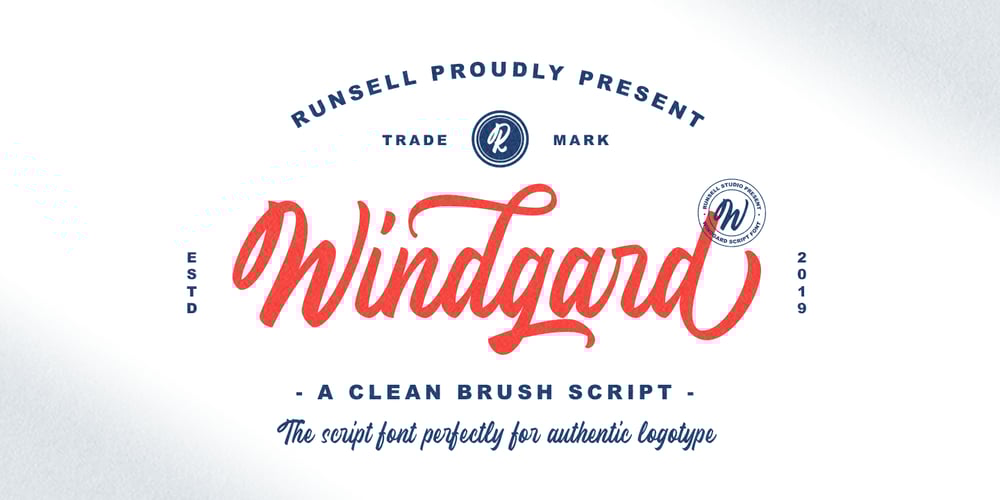
Windgard
Windgard font
Windgard Font Family was designed by Fitriyawan and published by Runsell Type. Windgard contains 1 styles and family package options. Introducing Windgard – A Clean Brush Script Windgard inspired by hand lettering brush style that moves in clean, make with perfectly horizontal vertical bezier handles. Each glyph has its own uniqueness and when meeting with others will provide a dynamic and playfully. Alternate characters has 6 set (Contextual Alternates, Stylistic Alternates, and ss01-ss04). In addition to the purposes of logotype Windgard Font can also be applied in the esport logo, sticker, apparel, bag, magazine, website headlines, packaging, branding, quotes, business cards, and more. We hope this can make inspire for your work.